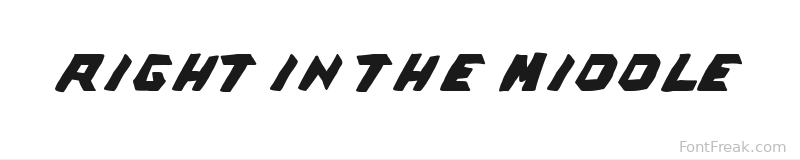
Right in the Middle
About Right in the Middle
Right in the Middle is a striking display font designed by the talented woodcutter Manero. This font falls into the decorative category, characterized by its bold, angular letterforms that create an impactful visual presence. The stroke weight is noticeably thick, offering a sense of strength and stability, while the high contrast between the strokes enhances its legibility. The spacing between the letters is well-balanced, allowing for easy readability even in larger text formats. The unique design incorporates sharp edges and distinctive angles, adding a modern twist to its decorative flair.
This font is ideal for a range of creative applications. It can be effectively used in movie posters, where its boldness captures attention and conveys a sense of drama. For small businesses, Right in the Middle works beautifully for restaurant menus, giving an edgy yet inviting feel that can attract diners. Additionally, it lends itself well to branding projects, helping to establish a memorable identity for products or services. Graphic designers will find it particularly useful for creating eye-catching promotional materials or social media graphics that need to stand out in a crowded digital landscape.
Targeted primarily at graphic designers, small business owners, and content creators, Right in the Middle is versatile enough to meet various design needs. Its unique style appeals to those looking to make a statement without sacrificing readability. With the Right in the Middle font free download option available, it is accessible for anyone looking to elevate their design projects. This font stands out not only for its distinctive aesthetic but also for its ability to blend modernity with a touch of classic charm, making it a valuable addition to any designer's toolkit.